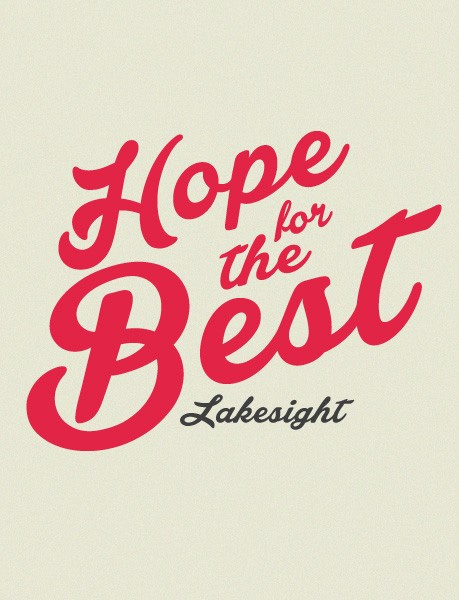
In this post I do my best to share some of the most versatile fonts that I feel will make excellent design chum for the next year. Enjoy!
When is it appropriate to use a script font?
First of all – definitely when you’re feeling fancy 😉 But also – seriously, script fonts are perfect when you want something more expressive, and with the right font – elegant.
Or it can just be fun – free, and flowing. Choose your fonts wisely – in design – fonts are some of the most critical tools. You get them right and your design has a 50% more likelihood of coming of well-designed.
Brand Inline Pro smacks of extremely well thought out design that updates it’s swashes as you type words. It’s almost a bit more intelligent than I’m currently sure of how they build in. I’m sure it just updates the letters if it’s not the first or last perhaps. Excellent font, and highly stylish.
Brand Shade Pro, really helps you understand why the font-family is called Brand. There are several other variations but these two stick out to me as front-runners. Brand is easily quickly a possibility for a real sexy wordmark, but of course these script fonts are so sticky sweet sometimes that they can grow to be overused and thus lose their awesomeness. As it stands.. this font is no “Lobster” (Lobster is the new Comic Sans,) it’s still a fresh new look for 2015.
Charcuterie Cursive has it’s place amongst the rest, but it’s by no means my favorite. It simply has a bit different look that could be of use for different projects. This was also featured on my favorite handwritten fonts post.
Lakesight is probably the freshest of the fresh. To me what makes this a “best of the best Script Fonts 2015” font is that it doesn’t mirror any other fonts that I’ve seen, but has a particular uniqueness that pushes it to the next level. Particularly as you can see in this delightful usage where it’s used at an angle.
Lust Script pushes out the wideness factor and really gives a lovely alternative to many of the Wisdom scripts and thirsty roughs of the world.
Rolling Pen is so good. Many of the ways they show it being used, show it looking as though it’s one of those fluorescent lamps that you see on stores. It looks dope, but I see it in much broader uses as well. You can put a light 2 or 3-pixel outline around it and it transforms it into a bit bolder version of itself, or just use the original version. Rolling pen is likely one of the most versatile fonts in this article that I have used, and plan to use over and over again.